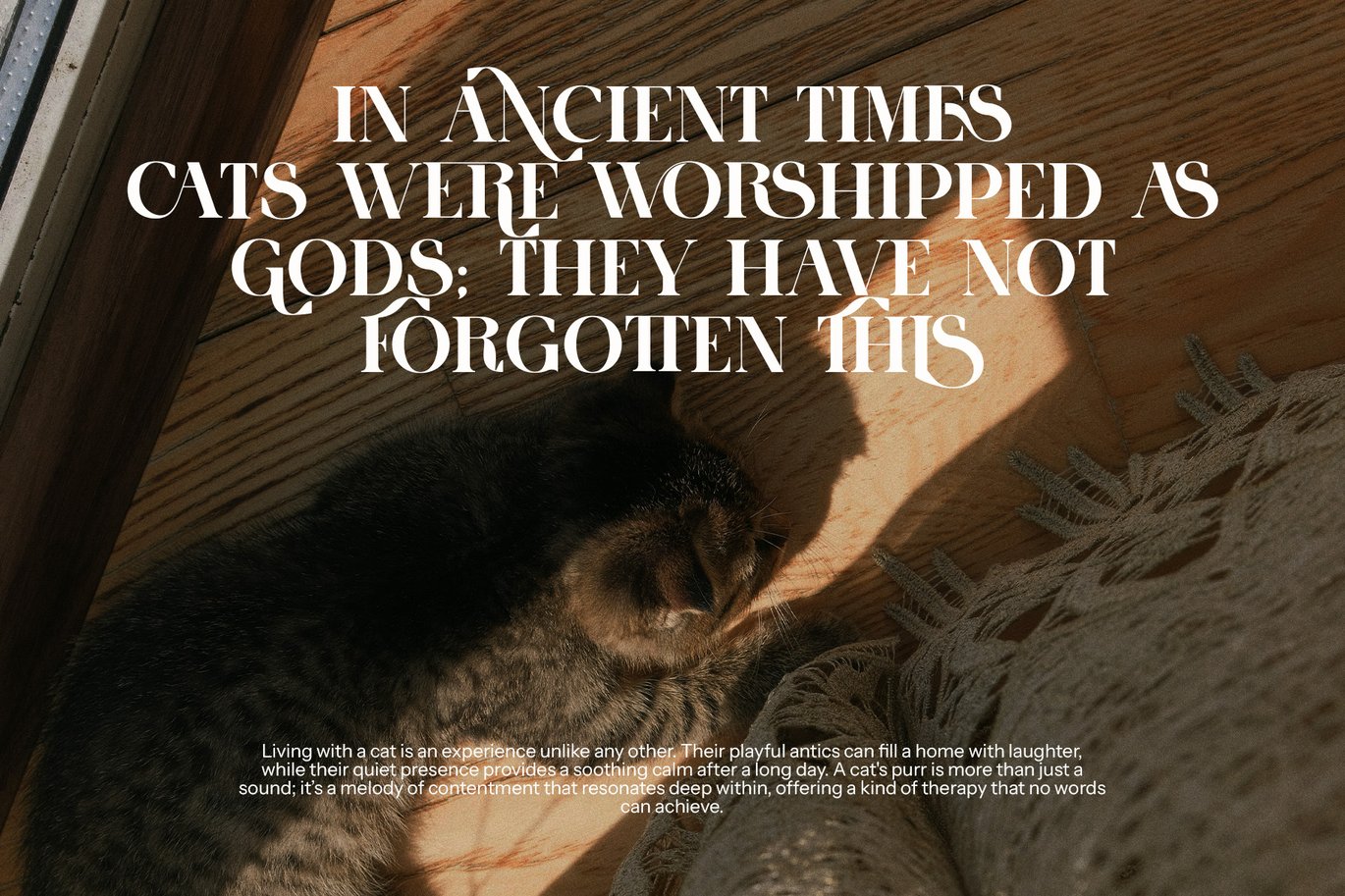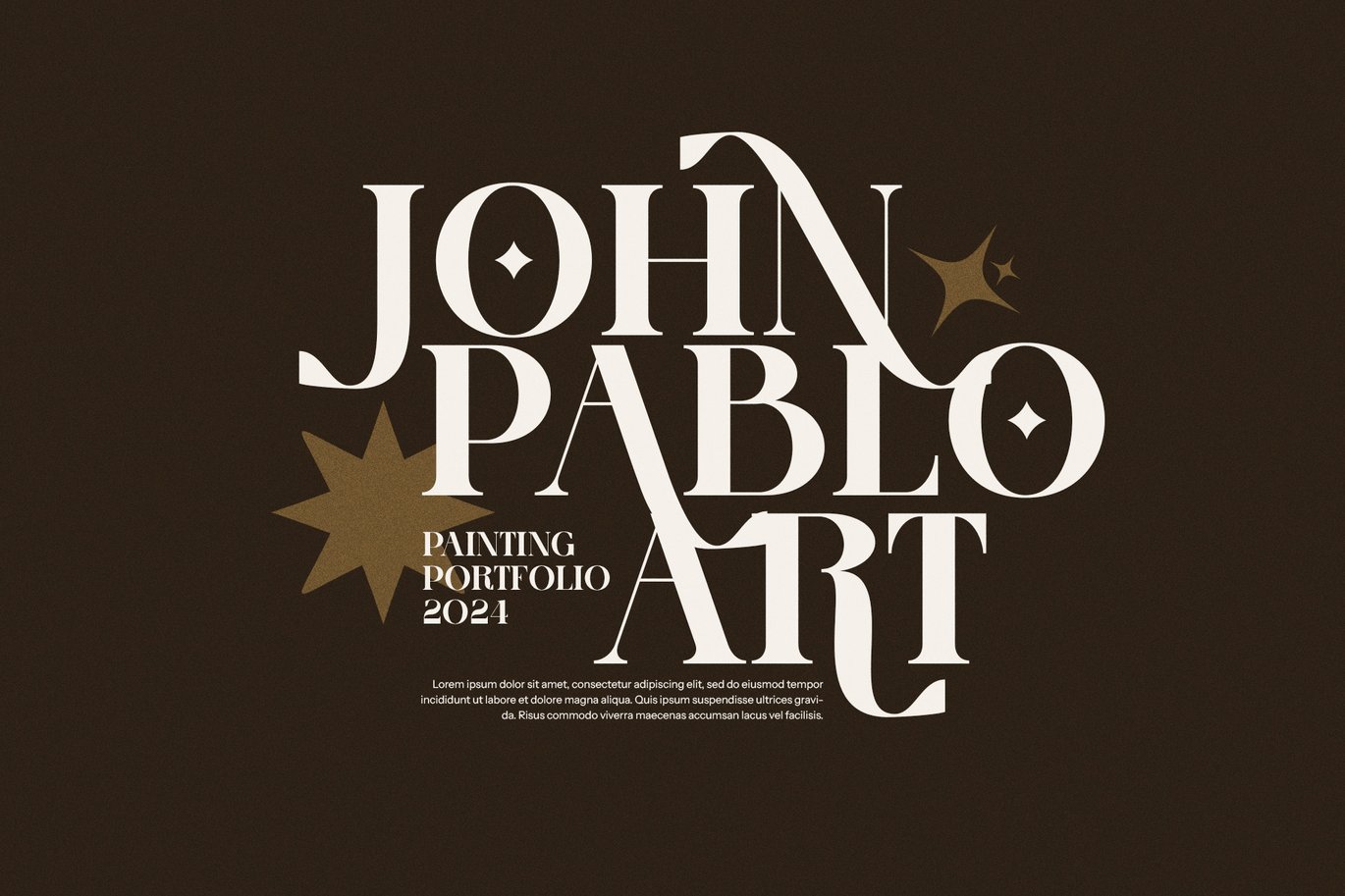
Rimes is an elegant serif from Perfectype, released in 2024. It has strong contrast between thick and thin strokes, sharp serifs and a set of alternates that let letters such as R, E and S stretch out with long, curved tails. Used in capitals, it looks like a fashion masthead. Mixed with its ligatures, it starts to feel almost hand-lettered.
Best uses for Rimes
- Fashion, beauty and jewellery logos
- Magazine covers and editorial headlines
- Premium food and drink packaging
- Art portfolio and gallery titles
- Wedding stationery with a modern edge
Rimes works best with a quiet partner. Montserrat in Light or Regular gives a crisp, modern contrast for subheads and short copy. For body text, Source Serif 4 is a readable serif that won’t fight Rimes for attention. If you want a softer, more literary feel, set captions in Cormorant Garamond italic.
Rimes Elegant Serif Font